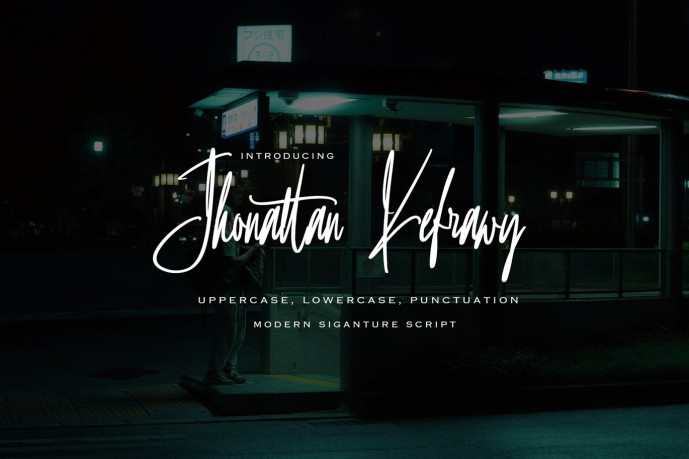
Jhonatan Kefrawy Font
Jhonatan Kefrawy is a modern signature script font designed to bring a personal, stylish, and effortlessly elegant feel to your creative projects. With its smooth flowing strokes, expressive letterforms, and natural handwritten rhythm, it captures the charm of a genuine signature while maintaining a polished and contemporary appearance.
Its graceful curves and dynamic character make Jhonatan Kefrawy a versatile choice for fashion branding, logos, wedding invitations, stationery, packaging, social media graphics, and editorial designs. Whether used for a sophisticated brand identity or a simple personal touch, it adds warmth, personality, and a sense of individuality to every composition. FIles include: OTF, TTF.